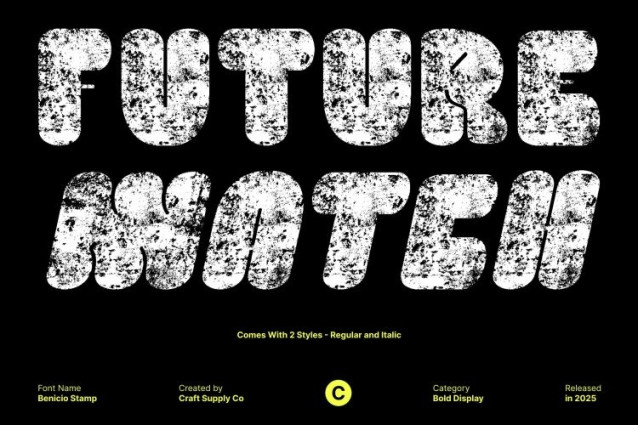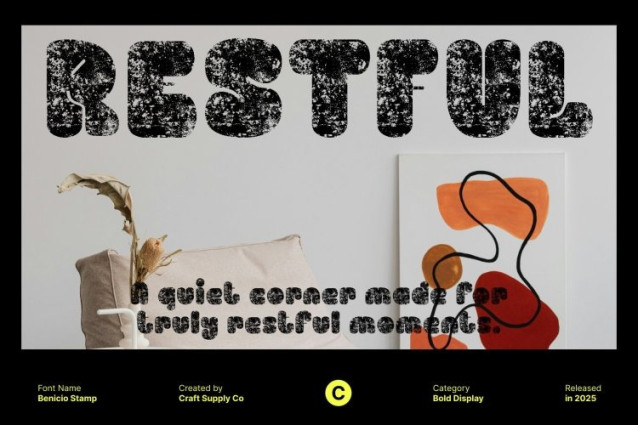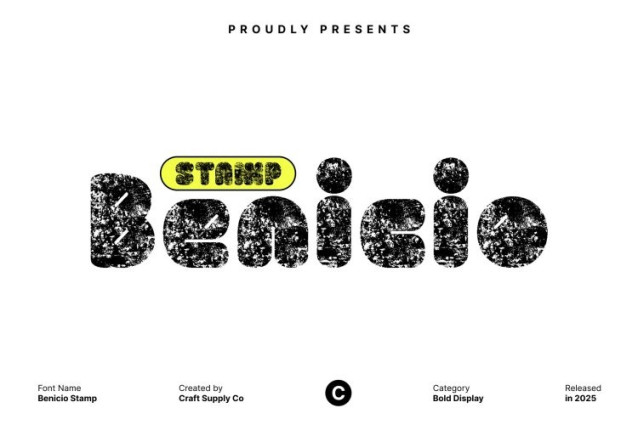
Benicio Stamp Font This is a display font that blends playful bubble shapes with a touch of refinement, creating a look that is both cute and delightfully expressive. Designed to radiate joy and movement, its rounded, inflated letterforms bring an immediate sense of fun to any layout.
Vintage Texture for Authentic Character
What sets this fun apart is its distinctive stamp texture, adding a nostalgic, handmade quality to each character. This textured finish mimics old print techniques, giving the font a vintage charm while preserving its playful, modern shape.
Perfect for Retro Posters, Playful Branding, and Nostalgic Themes
This font shines in vintage-inspired layouts, especially those that aim to mix old-school aesthetics with cheerful energy. It’s perfect for old posters, fun retro branding, kids’ merchandise, packaging, event graphics, and design themes that need a blend of charm, humor, and handcrafted character.
Expressive, Fun, and Versatile in Creative Use
With its lively shapes and textured finish, this font brings rhythm and personality to every project. It adapts beautifully across both print and digital designs, maintaining a friendly, engaging look at any scale. Whether you’re building a playful logo, creating dynamic social graphics, or crafting nostalgic artwork, this font supports your creativity with a uniquely cheerful and vintage-inspired voice.